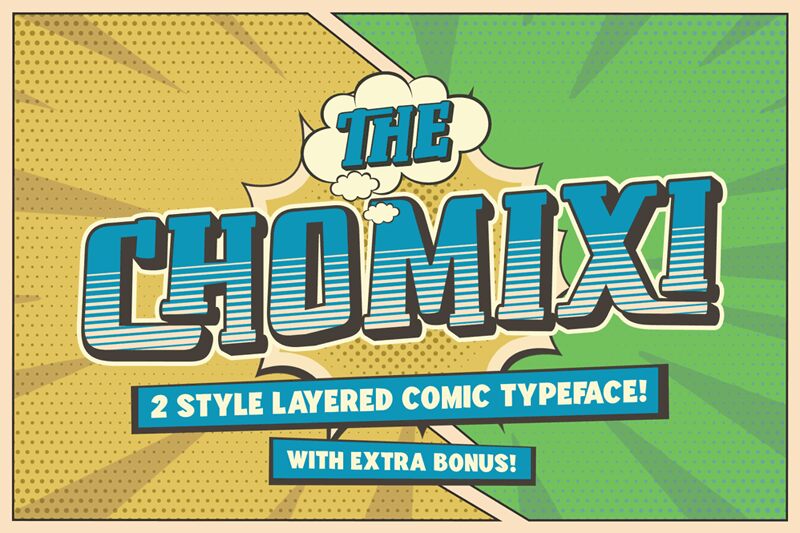
Chomixi 3D Regular
Chomixi 3D emerges as a playful yet robust member of the Chomixi font family, designed by the creative minds at Alit Design. This bold display font leaps off the page with its 3D comic style, offering a dynamic aesthetic that is both eye-catching and whimsically engaging. The layered depth effect adds a tangible sense of volume to each character, making it particularly suitable for titles, logos, and any project requiring a touch of fun and innovation.
The Chomixi 3D's solid construction ensures legibility while its unique character shapes exude charm, perfect for designers looking to inject personality into their work. Whether it's for promotional materials, animated content, or playful branding efforts, this font stands out with its ability to merge comic book flair with three-dimensional realism. Its appeal lies not just in its visual impact but also in its versatility across various creative landscapes.